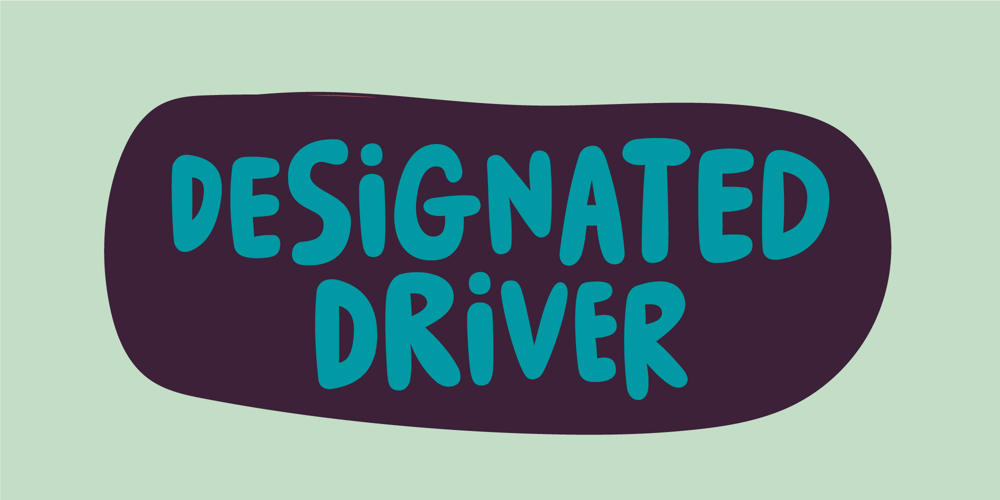
Designated Driver Font Family was designed by Jakob Fischer and published by PizzaDude.dk. Designated Driver contains 2 styles and family package options. A few years back I enjoyed myself with drawing postcards with clever sentences like “you’re doing great” or “take it easy” Sometime motivational, and sometimes just fun wordplays.I often did in a casual, graffiti-like style with soft curves and edges. Now, years later, I did my best to encapsulate this style in this font. Originally I made the font in hand, but in the end I decided to manually trace each letter, leaving a super clean and sturdy font full of attitude! The name of the font is from a scene in one of my favourite movies “There’s something about Mary”I even made sure there’s multilingual support and 5 different letters to choose from! 🙂